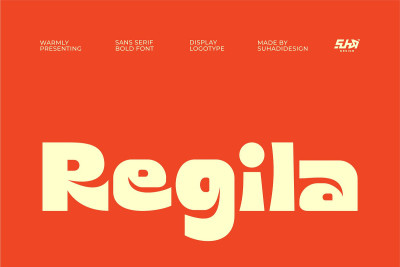
Regila - Bold Display Logo Font
Regila - Bold Display Logo is a thoughtfully constructed typeface that performs equally well in display and body text settings.
Its proportions suit a wide range of uses: website headers, printed flyers, restaurant menus, annual reports, and product packaging.